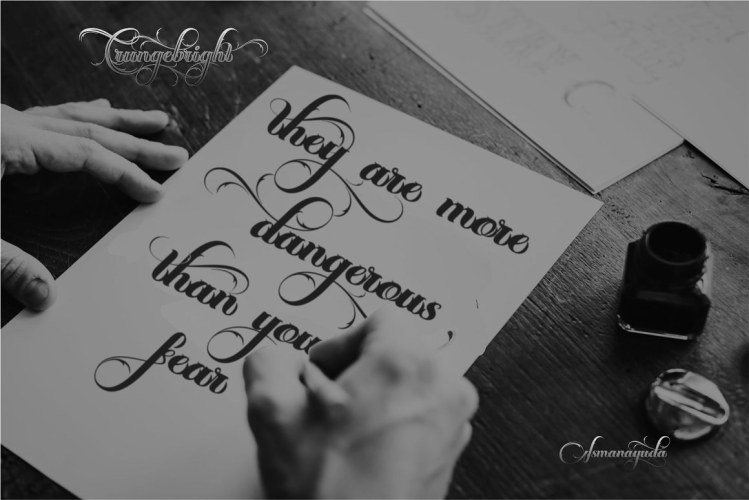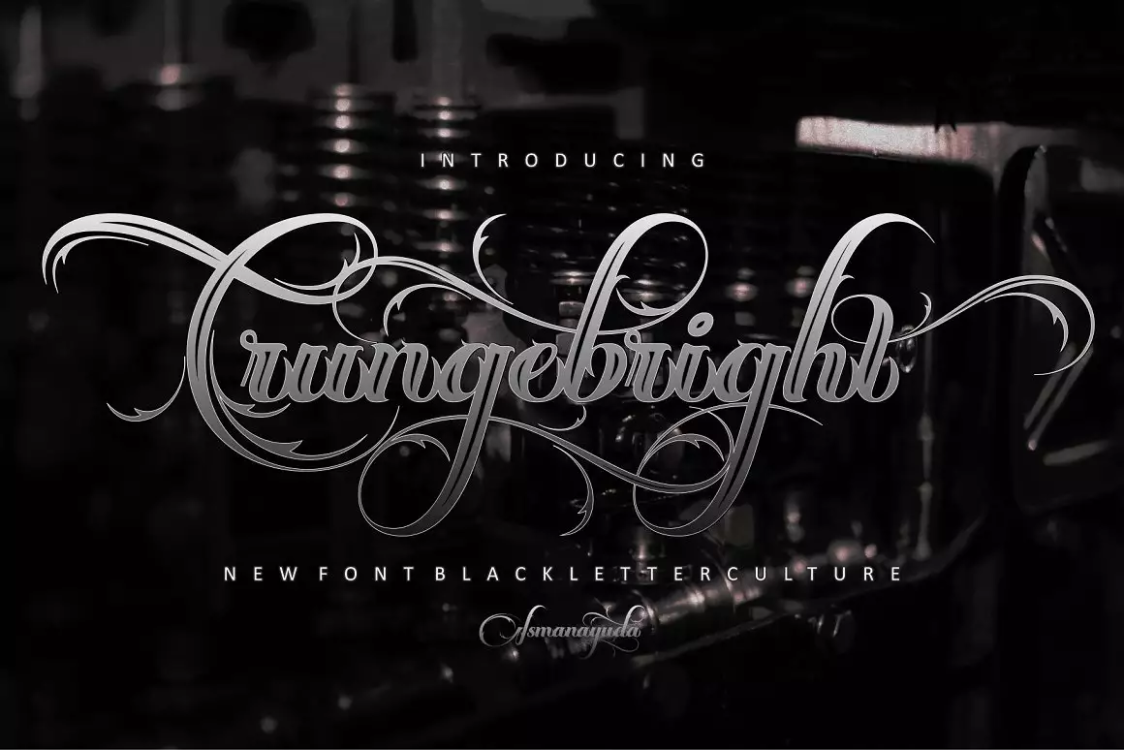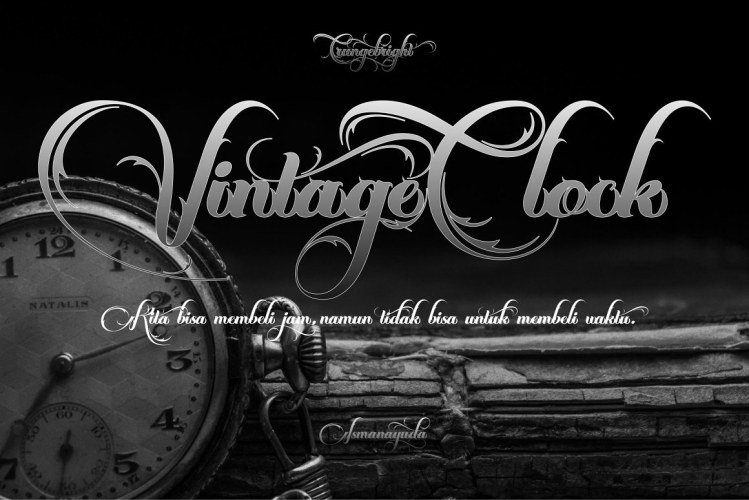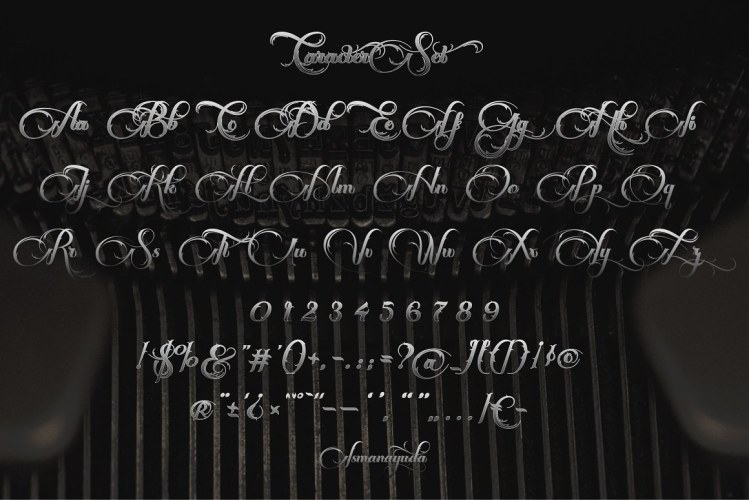
Crungebright Font
Crungbringt is a script font from us that carries colors from the blackletter flow so that this font can be used for various needs.
Whether it’s for tattoos, cloth, band logo designs, or industry.
Where Crungebright Font works best
Music & streetwear
Crungebright Font is a staple for metal and hip-hop artwork, tattoo lettering and streetwear graphics.
Beer, spirits & heritage labels
Blackletter signals tradition on brewery, whisky and old-town branding.
Certificates & diplomas
Classic gothic letterforms suit formal documents and mastheads.
What is Crungebright Font good for?
Crungebright Font is a Blackletter Font typeface tagged Blackletter, Blackletter Font, Branding, Headlines. It works well for headlines, logos, posters, social media graphics and branding projects that need a distinctive blackletter font look.